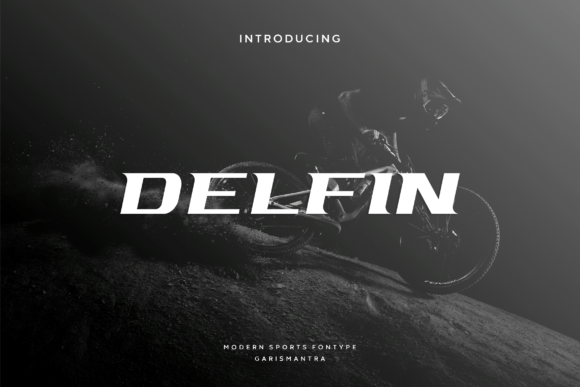
Delfin Font: Elevate Your Designs with a Modern, Sports-Themed Display Font
In the world of typography, fonts play a crucial role in conveying messages, expressing emotions, and creating visual identities. For designers, having access to a diverse library of high-quality fonts is essential for producing stunning work. One such font that has gained significant attention in recent times is the Delfin Font. In this article, we’ll explore what makes Delfin a modern, sports-themed display font and how it can elevate your designs.
What is Delfin Font?
Delfin Font is a contemporary, sports-themed display font designed to make a statement. Its sleek lines, bold curves, and dynamic style make it perfect for use in various design projects, from sports branding and advertising to digital media and print materials. The font’s modern aesthetic and versatility have made it a popular choice among designers.
Key Features of Delfin Font
- Modern Design: Delfin Font boasts a modern design with clean lines, geometric shapes, and a sporty feel.
- Display Font: This font is specifically designed for display purposes, making it ideal for headlines, titles, and short texts.
- Sports-Themed: The font’s sports-themed style makes it perfect for use in sports branding, advertising, and marketing materials.
- Versatile: Delfin Font can be used in various design projects, from digital media to print materials.
- High-Quality: The font is designed with high-quality craftsmanship, ensuring that it looks great in any design.
Uses of Delfin Font
Delfin Font is an incredibly versatile font that can be used in a wide range of design projects. Here are some examples:
- Sports Branding: Use Delfin Font to create bold and dynamic sports logos, jerseys, and marketing materials.
- Advertising: The font’s modern style makes it perfect for use in advertising campaigns, especially for sports-related products or services.
- Digital Media: Delfin Font can be used in digital media, such as social media graphics, videos, and website headers.
- Print Materials: The font can be used in print materials, including brochures, flyers, posters, and business cards.
- Event Branding: Use Delfin Font to create event branding materials, such as banners, signage, and programs.
Benefits of Using Delfin Font
Using Delfin Font in your designs offers several benefits:
- Unique Style: Delfin Font provides a unique and modern style that sets your designs apart from others.
- Versatility: The font’s versatility makes it suitable for use in various design projects.
- High-Quality: The font’s high-quality craftsmanship ensures that it looks great in any design.
- Time-Saving: Using Delfin Font can save you time and effort in designing, as it provides a pre-designed solution.
Tips for Using Delfin Font
Here are some tips for using Delfin Font effectively:
- Use it for Headlines: Delfin Font is perfect for use in headlines and titles, where you want to make a bold statement.
- Experiment with Colors: Try out different colors and gradients to give your designs a unique look.
- Pair it with Other Fonts: Delfin Font can be paired with other fonts to create a unique and visually appealing design.
- Use it for Digital Media: The font is optimized for digital media, so use it for social media graphics, videos, and website headers.
- Pay Attention to Legibility: Make sure to adjust the font size and style to ensure legibility in your designs.
In conclusion, Delfin Font is a modern, sports-themed display font that can elevate any design project. Its unique style, versatility, and high-quality craftsmanship make it a valuable asset to any designer’s font library. Whether you’re designing sports branding materials, advertising campaigns, or digital media, Delfin Font is an excellent choice. With its ease of use and time-saving benefits, Delfin Font is a must-have font for any designer looking to create stunning designs.